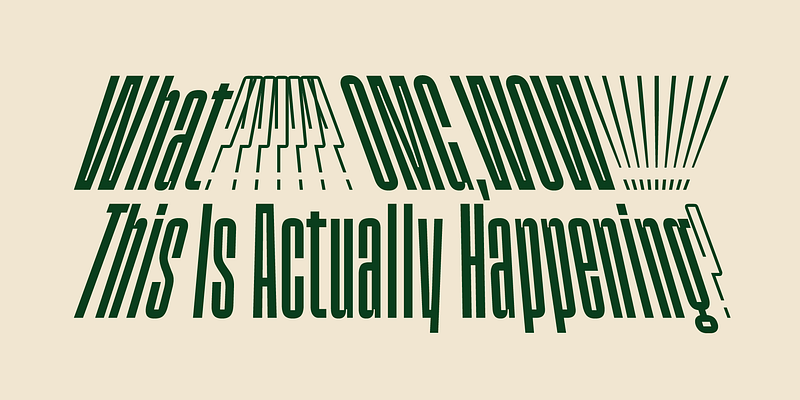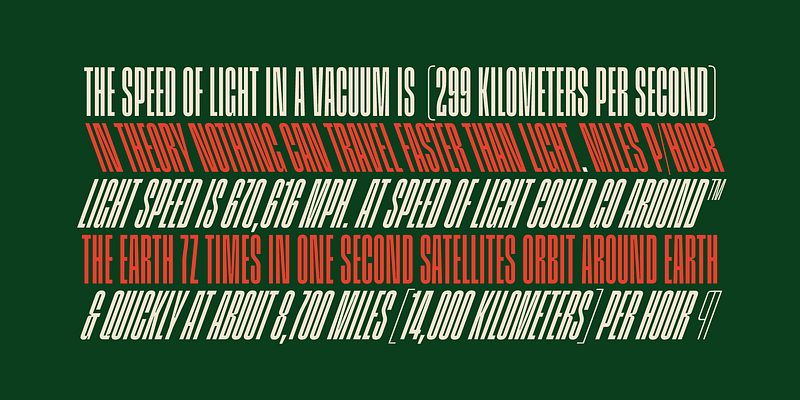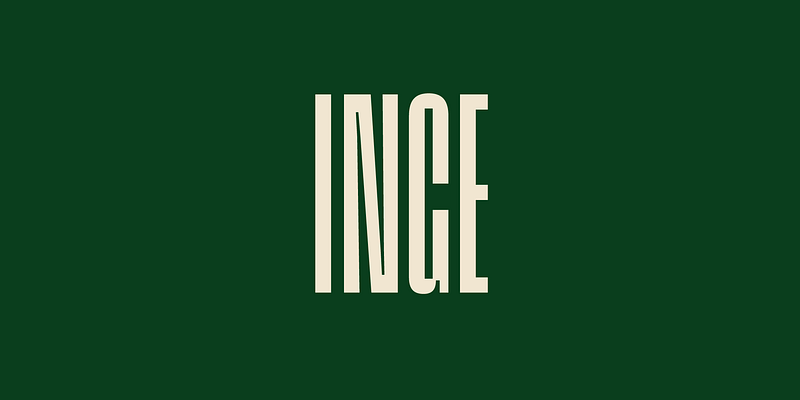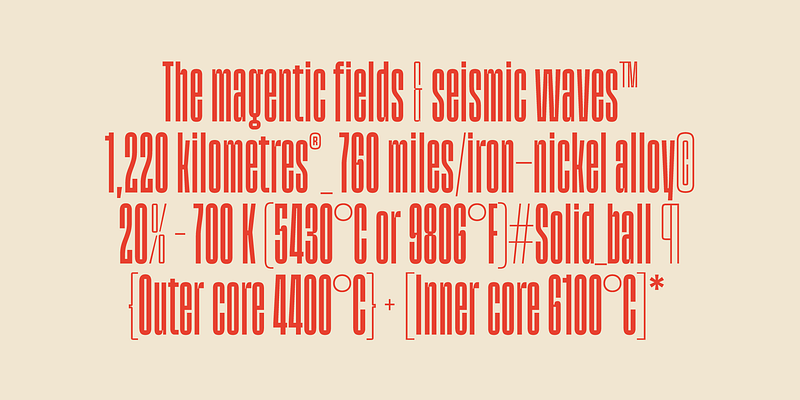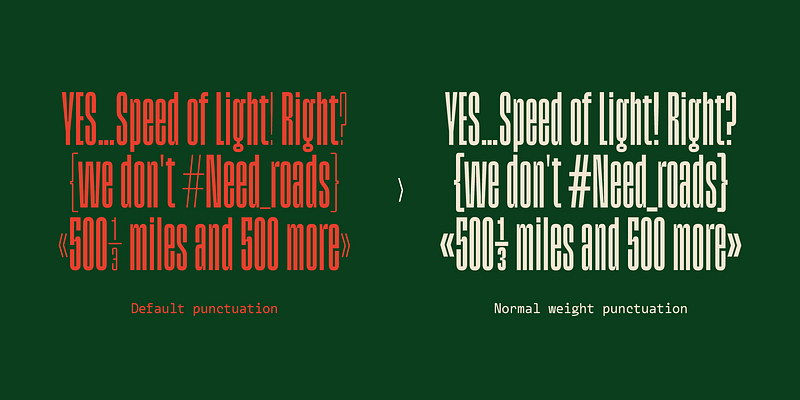
Inge is a tight display font with a strong sense of rhythm and a very solid texture. The narrow shapes on it make Inge very suitable to be used on large scales, creating robust solid text blocks. The side-to-side movement are a hint that something is accelerating, without losing strength and control. It is a single weight typeface. But it’s a perfect balance between acceleration and strength gives Inge a unique and pure endurance. Inge is named after Inge Lehmann, a Danish seismologist and geophysicist who discovered that the Earth has a solid inner core inside a molten outer core. She lived over 104 years.
Fer Cozzi
Born in Argentina, Fer Cozzi attended the University of Buenos Aires, where she completed a degree in graphic design and a postgraduate specialization in type design, completing several courses in calligraphy, lettering and type design. Fer currently teaches in the Master of Typeface Design at the University of Buenos Aires.
Fer Cozzi’s type explores rhythms, shapes and strokes where randomness and a not-so-obvious rationality meet. Expert in nothing, with opinions on everything and successful in all kinds of failures. When she’s not drawing letters, she’ probably dancing to the rhythm of 90s pop.